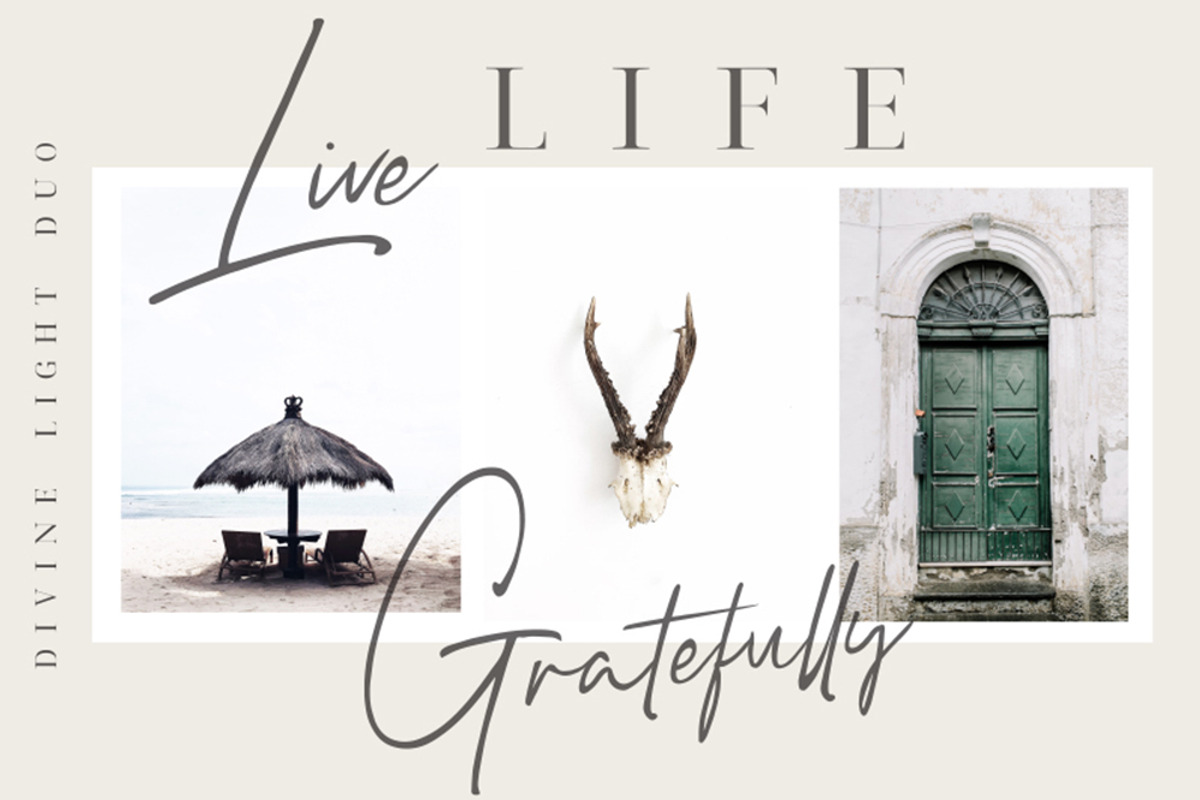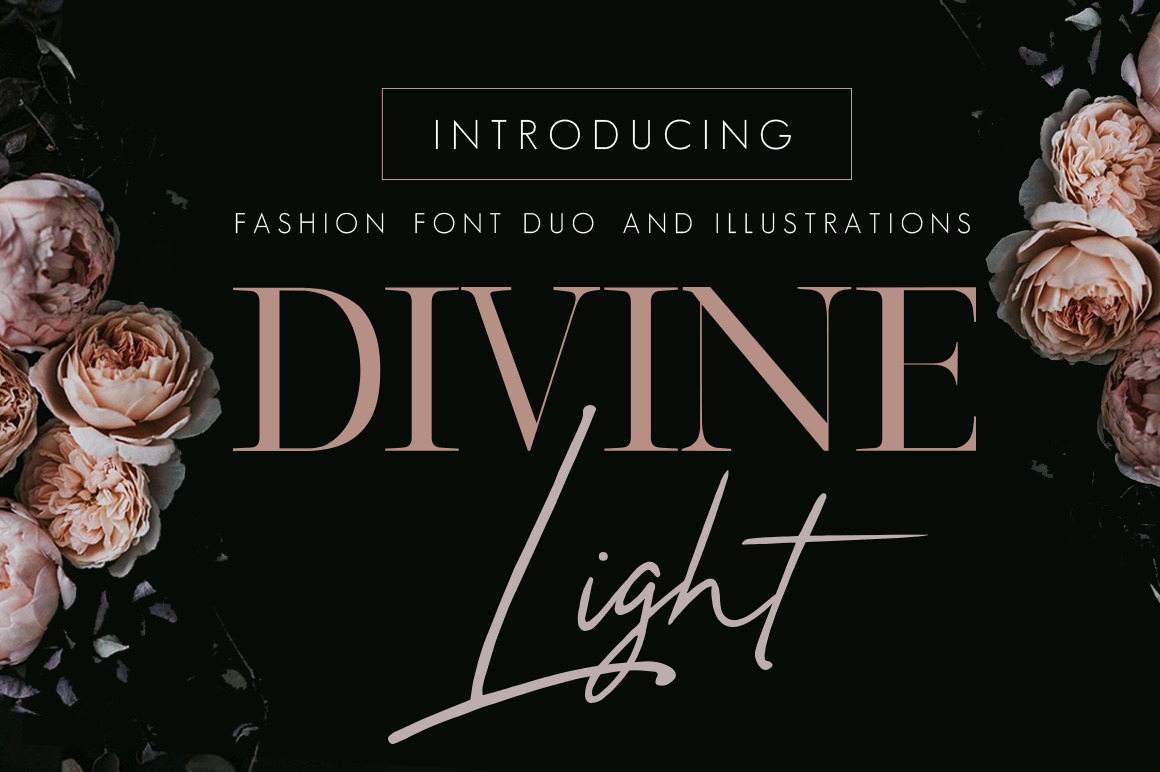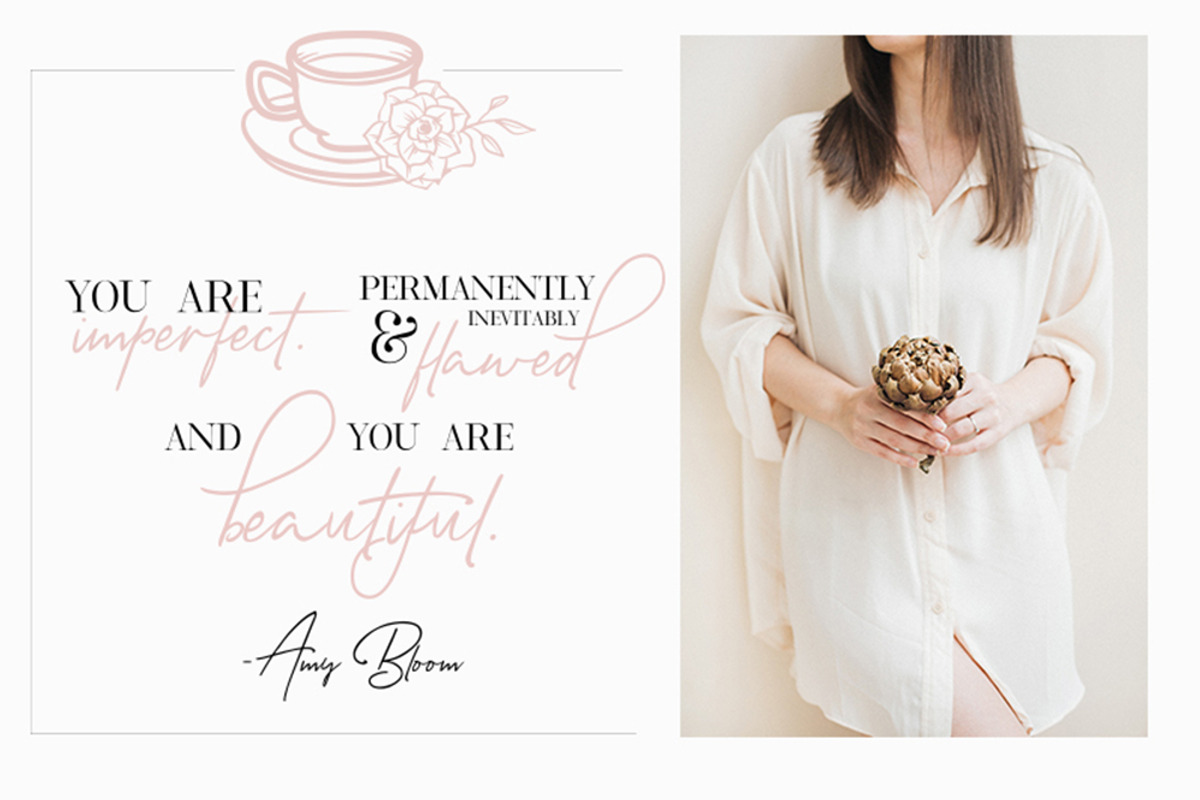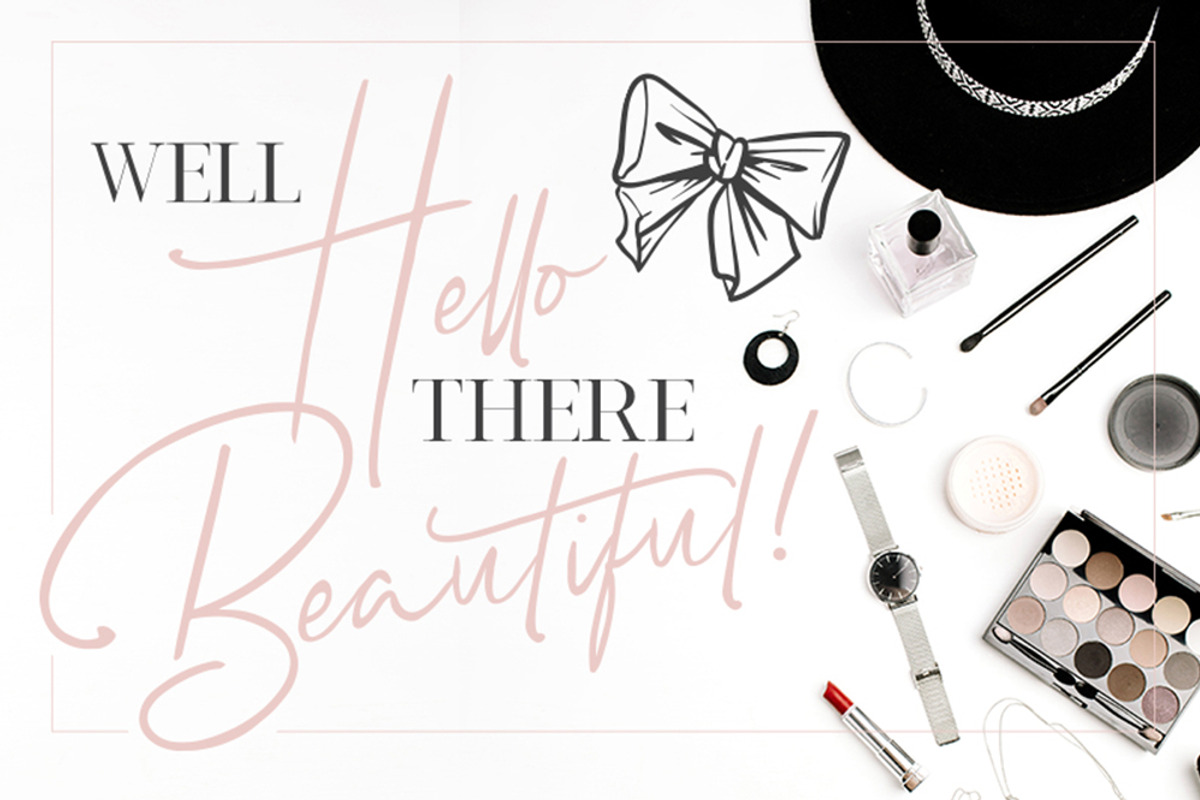
Divine Light Font Duo and extras
Divine Light Duo is a font family containing 2 complementary fonts (sans and script / signature) and an extra font containing fashion illustrations.
The best tool if you want to create t-shirt designs, mug designs, logos or just play around.